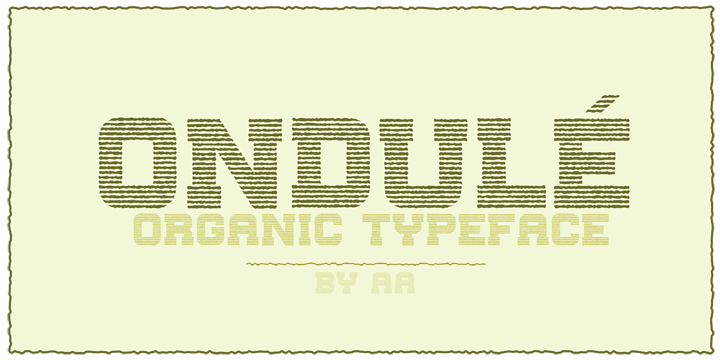
I would like to say that I used to be very happy while I was designing Ondule Font which comes in one weight. In Ondule Font, each one of the characters were created one by one, then with a special effect, natural curlings were added those straight and sharp lines. As gorgeous images could be created by Ondule Font in big point sizes, also legible graphics can be created even in extra big point sizes. You can witness to interesting views in states formed by dark background and light fonts in foreground. With Ondule Font, you can create especially amazing posters and then inimitable logos and the other graphics.